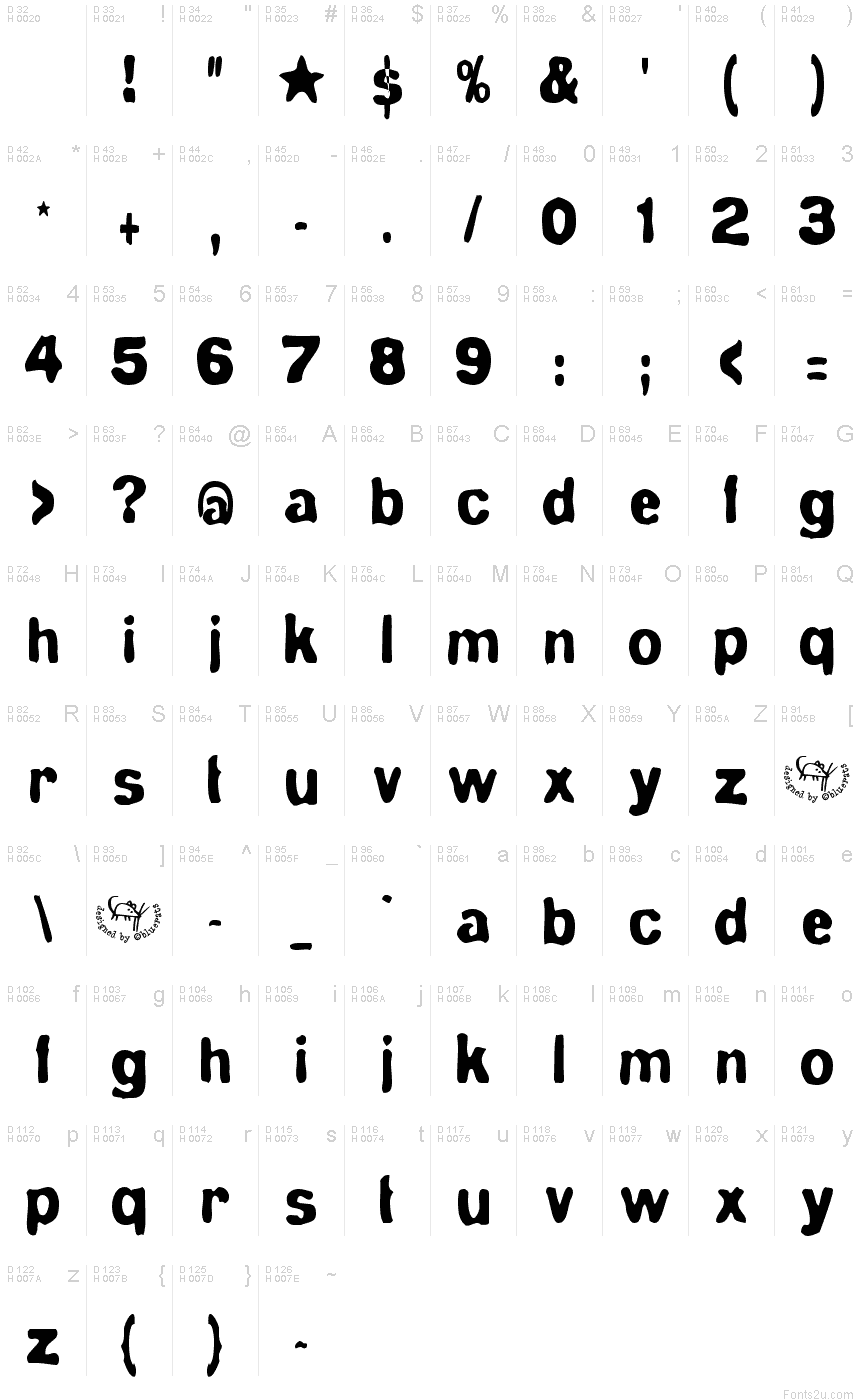
BlueVelvet Medium
BlueVelvet Medium font by Les Rats Bleus is a free decorative sans-serif typeface with a thick, inky charm that looks almost hand-poured onto the page. The rounded, slightly swollen forms feel soft and touchable, like marker letters that pooled just a bit too long. Within the BlueVelvet family, this Medium weight keeps things bold and legible while still leaning into that gooey, playful texture.
Using BlueVelvet Medium, your words instantly feel louder, friendlier, and a bit mischievous—great for posters, candy or snack packaging, kids’ book covers, party invitations, zine titles, and bold social graphics. This free font holds up best at larger sizes where those blobby curves can really breathe; try pairing it with a clean geometric sans in small text to keep layouts readable while letting BlueVelvet carry the personality.